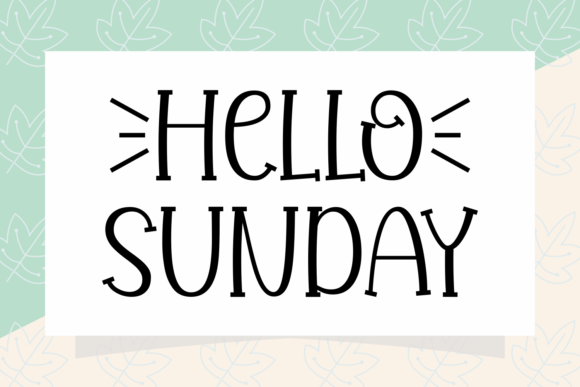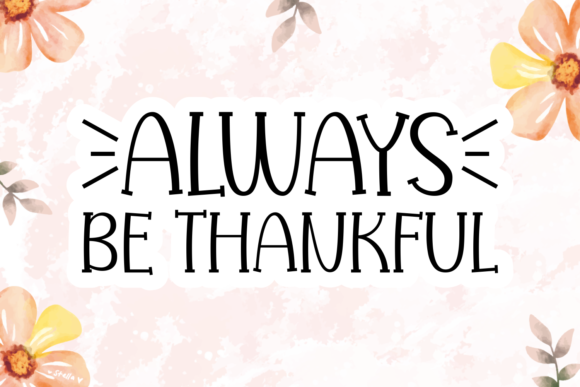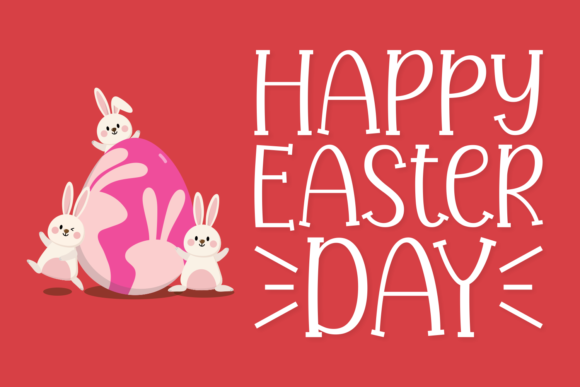
Introduction to Hey Emma Font
As a designer, there’s nothing quite like the thrill of bringing a creative project to life. You’re brainstorming ideas, sketching out concepts, and finally, you land on the perfect font to tie everything together. For many of us, that moment is a game-changer. And for those who’ve discovered the Hey Emma Font, that moment is all too real.
This charming serif font is more than just a pretty face – it’s a design resource that adds a touch of whimsy and personality to any project. With its tall and thin characters, Hey Emma Font is the perfect match for posters, quotes, and all sorts of creative endeavors. And the best part? It’s available for free download, making it a valuable asset for designers of all levels.
Whether you’re working on a high-quality design for a client or simply want to add some flair to your own personal projects, the Hey Emma Font is sure to deliver. With its transparent background and high-quality design, this font is a must-have for any design enthusiast.
- Transparent background: This font features a transparent background, making it ideal for use in creative projects where a solid background is not desired.
- High-quality design: This font is designed to be high-quality and visually appealing, making it perfect for use in creative projects where a professional look is desired.
- Perfect for creative projects: This font is designed to be used in creative projects, such as graphic design, digital art, and web design.
Honest Review: Hey Emma Font
I recently stumbled upon the Hey Emma Font and was excited to try it out for my creative project. The font is available for free download, which is always a plus. The transparent background option is also a great feature that allows for flexibility in design.
Here are some things that I like about the Hey Emma Font:
- ✨ Unique and playful style: The font has a distinct personality that adds a touch of whimsy to any design.
- ✨ High-quality design: The font is well-crafted and looks great at various sizes.
- ✨ Versatile: The font can be used for a wide range of creative projects, from branding to editorial design.
- ⚠️ Limited character set: The font may not include all the characters you need for your project.
- ⚠️ Not ideal for body text: While the font is great for headlines and titles, it may not be the best choice for large blocks of body text.
Overall, I’m impressed with the Hey Emma Font and would recommend it as a design resource for creative projects. With its unique style and high-quality design, it’s definitely worth checking out – especially if you’re looking for a free font with a transparent background option.
Some common use cases for the Hey Emma Font include: creating eye-catching titles, designing invitations, and crafting social media graphics. To get the most out of this font, experiment with different combinations of styles, colors, and effects to achieve a unique look.